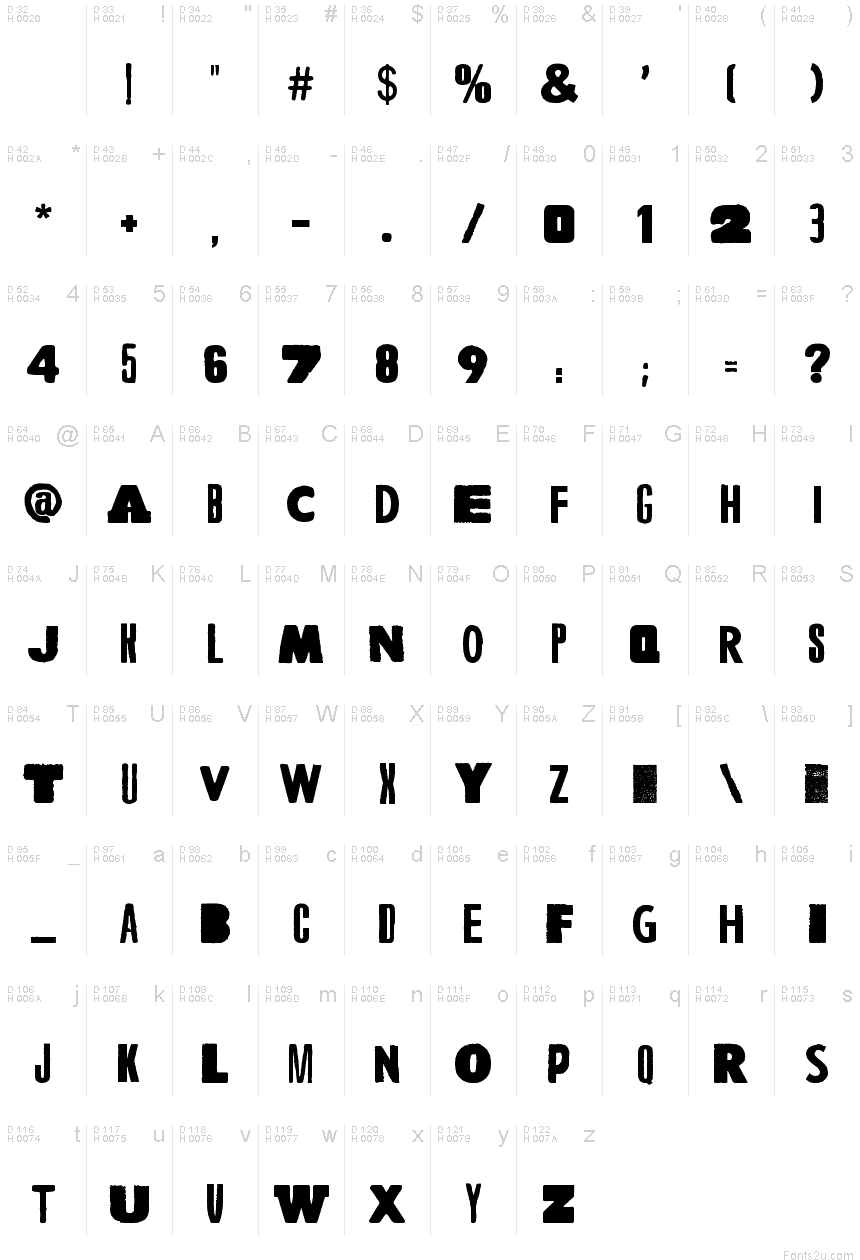
A Wolf At The Door is a free rough-edged display font by Imagex, built around massive, tightly packed capitals. The letters shift sharply in width, mixing broad shapes with narrow forms. Nicks and uneven contours prevent a mechanically smooth finish.
It can turn a poster title into part of the artwork, with its irregular shapes supplying the same raw impact as a cut-paper graphic. That approach also suits metal album covers and horror event promotions, where polished lettering would feel too restrained. On apparel and drink packaging, the blunt forms can become a recognizable brand mark with an underground edge.